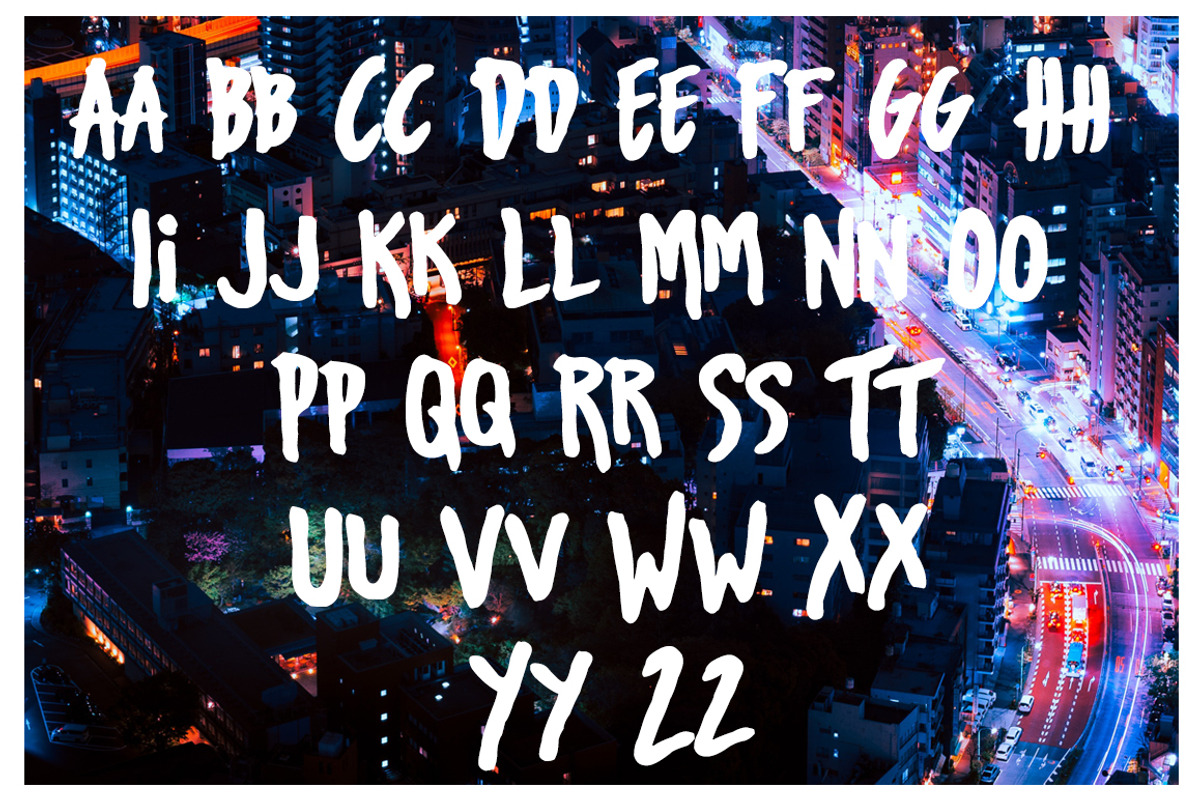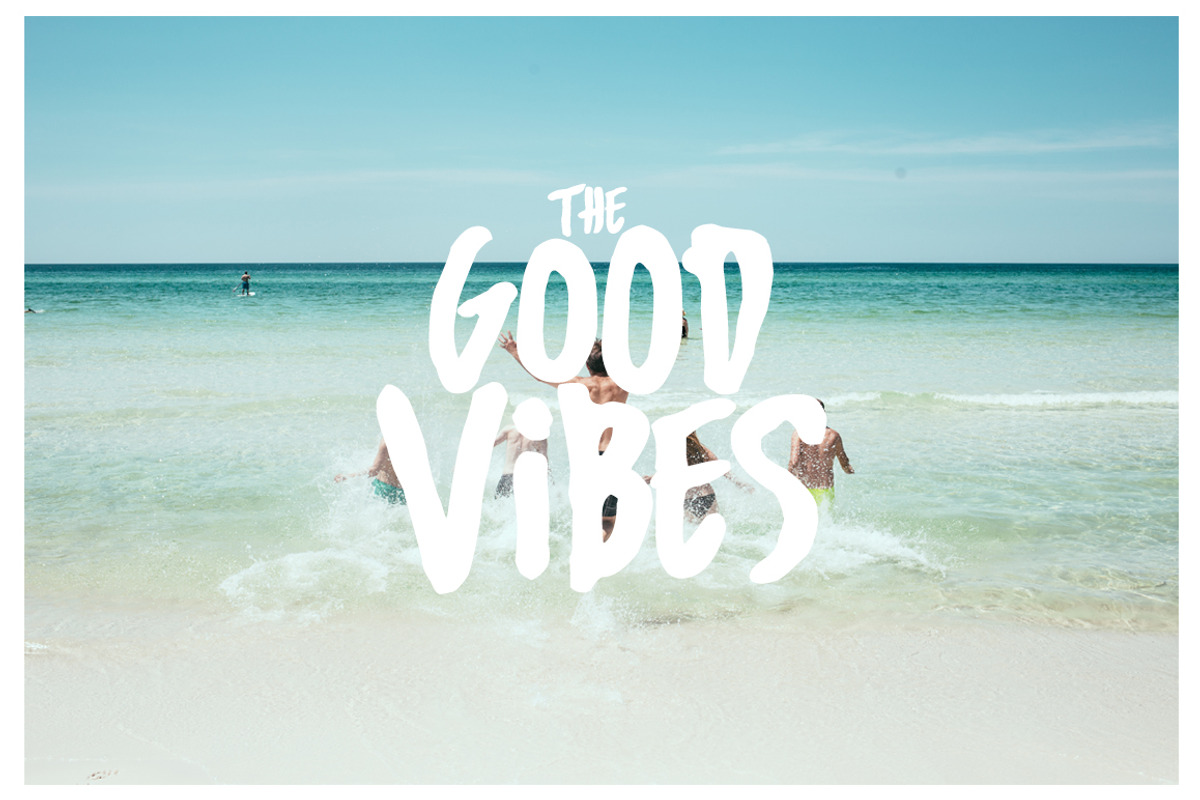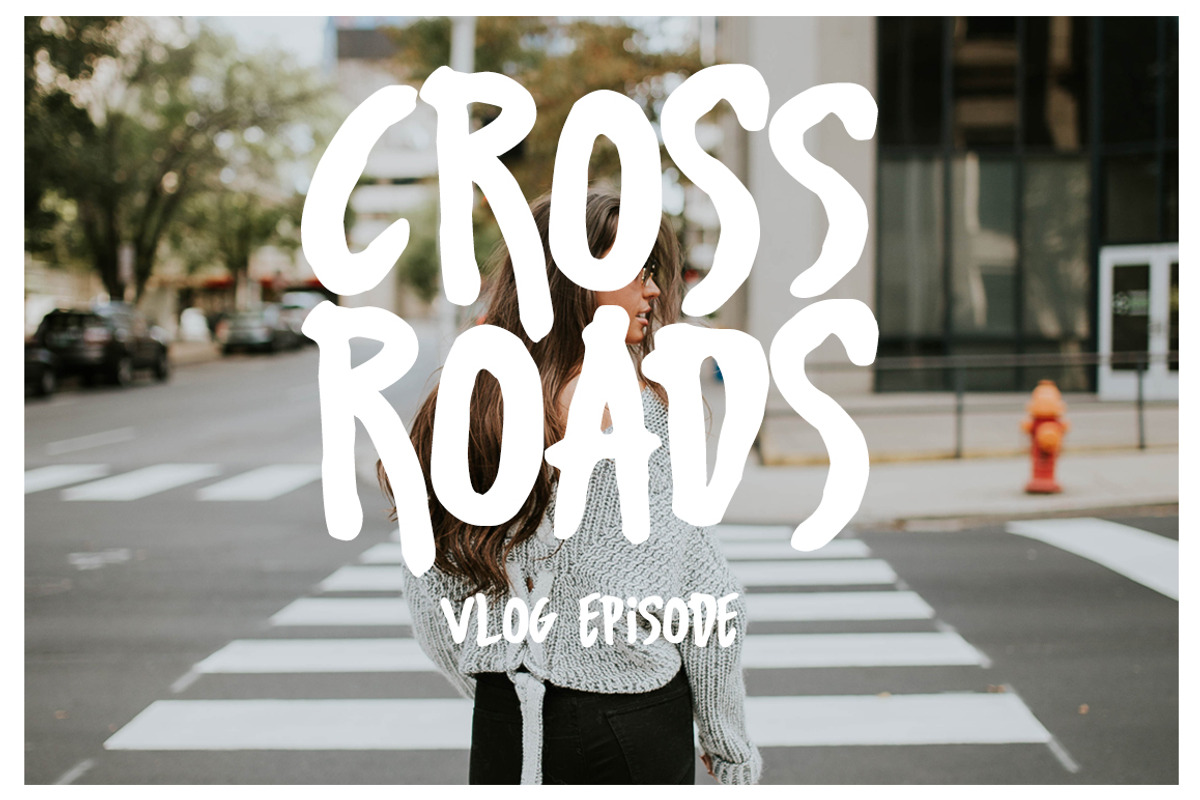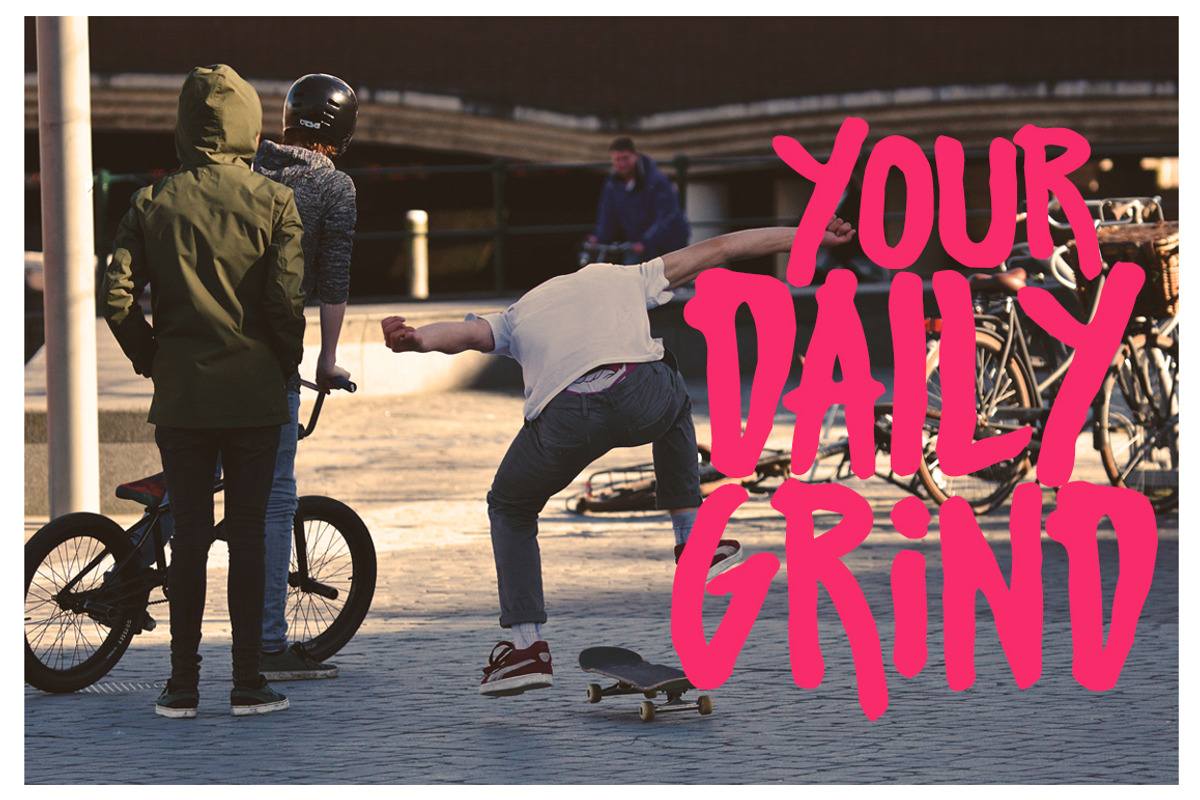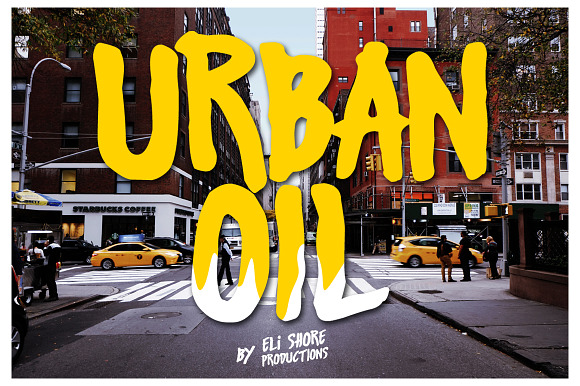
Urban Oil Typeface
Introducing Urban Oil Typeface.Not just an oil but your Urban Oil! A bold oil-based handwritten font with weighty and natural stroke fit to your vlog/blog or as a stylish text overlay to any background image. Its versatility gives a chill vibe to any of your designs. Well-suited for logos, tshirt designs, branding projects, product packaging etc.
Combine uppercase and lowercase letters to have an unleveled letters effect.